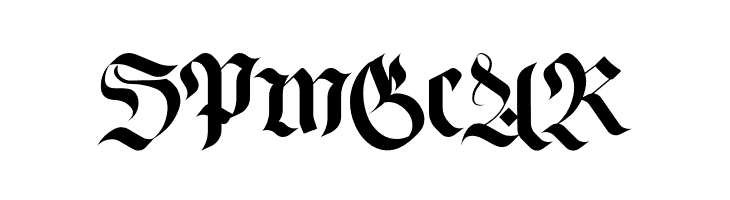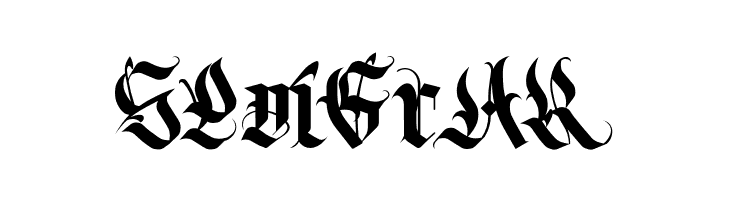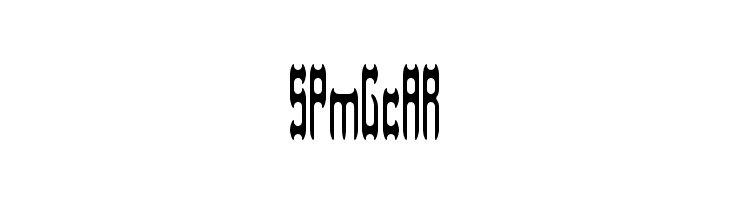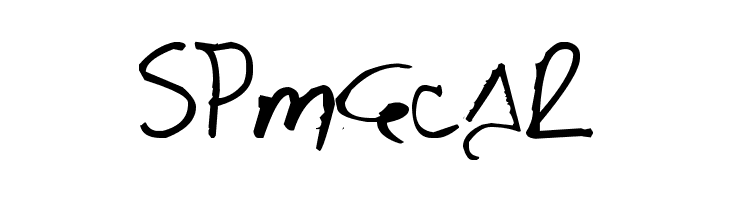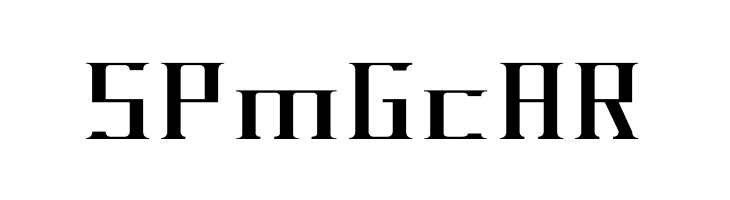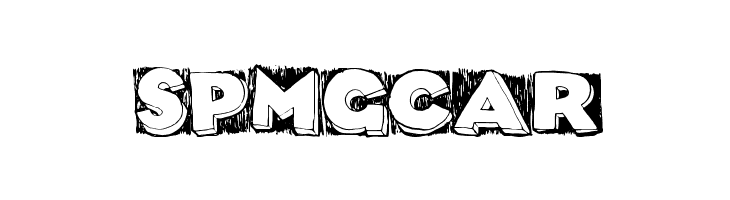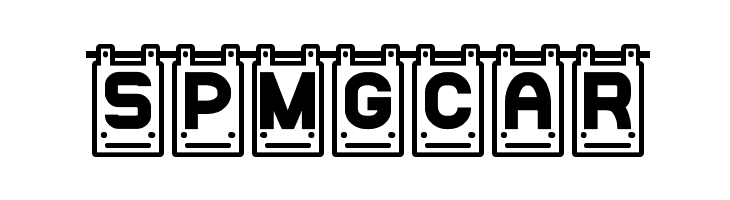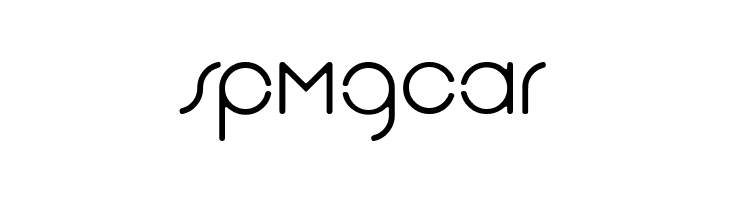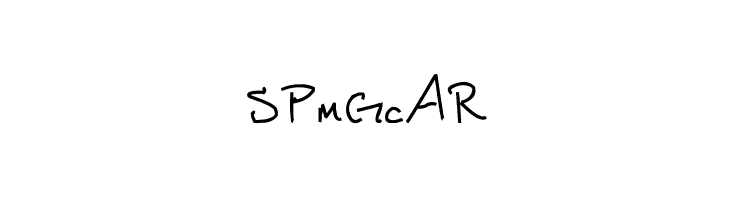
• Darkslayer
( Fonts by Blackletter Studio )
A bold, gothic Blackletter font with sharp, angular lines and intricate detailing.
• Darksoul
( Fonts by Blackletter Studio )
A gothic, ornate font with high contrast and elaborate flourishes.
• DarkWind
• Daryl Short
• Das Reicht Gut Regular
( Fonts by Typography in Decay )
A modern, geometric font with rounded edges and consistent stroke width.
• Dastardly BRK
• Data Cards St
( Fonts by Southype )
A retro digital display-inspired font with bold, blocky characters in rectangular frames.
• DatBox
( Fonts by Xerographer Fonts )
A bold, hand-drawn font with a playful, sketch-like appearance.
• Davidcito
A playful, dynamic handwritten font with bold, irregular strokes.
• Davidcito
( Fonts by David Espinosa - http://issuu.com/davidespinosa5/ )
A playful, dynamic handwritten font with expressive strokes and a lively aesthetic.